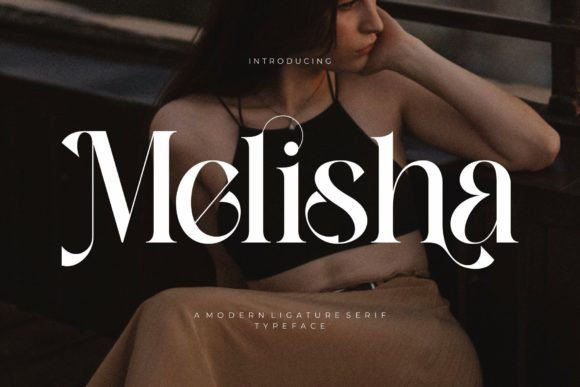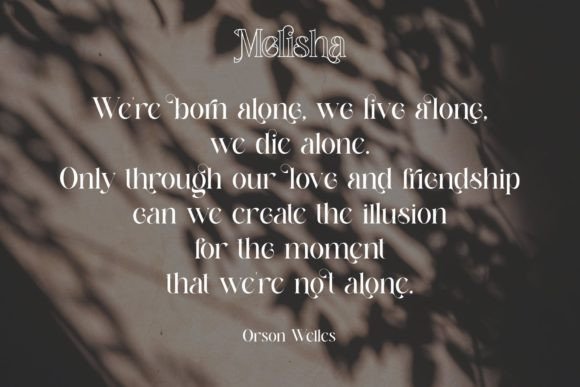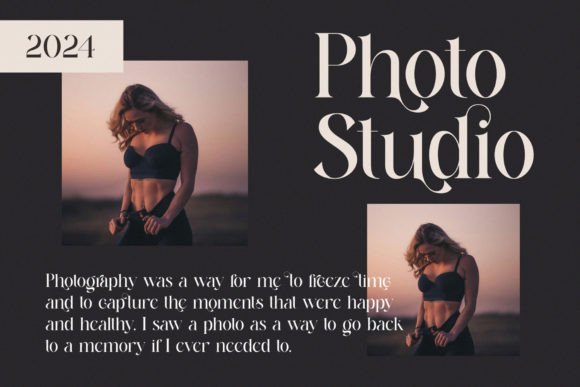
Melisha Font: Elegant Serif Typography for Modern Logo Design
About the Melisha Font
Discover the charm of Melisha Font. This font is a perfect blend of modern aesthetics and classic appeal. **Melisha** Modern Serif Typeface inspired by the famous minimalist logo perfect to design templates, brochures, videos, advertising branding, logos, invitations, layout designs, elegant crafting, beauty design, and other
Melisha’s clean lines and modern serif design make it ideal for headlines, logos, and short-form text in branding materials and advertising. It excels in creating a sophisticated and memorable impression in posters and invitations, lending itself well to high-impact visuals. However, its elegant but slightly formal style is less suitable for body text or UI elements requiring high readability in long paragraphs.
Pairing Melisha effectively depends on the desired effect. For a contemporary feel, consider pairing it with a geometric sans-serif like Montserrat or a neutral sans-serif such as Lato. To emphasize its elegance, a delicate script font such as Great Vibes can add a touch of luxury. Conversely, a strong, contrasting serif like Playfair Display can create visual dynamism.
Melisha projects a sophisticated, minimalist, and modern personality. Brands seeking to convey elegance, authority, or a sense of refined simplicity will find it a strong asset. Its versatility allows for applications ranging from high-end beauty products to corporate branding, emphasizing a sense of timeless quality.
Melisha Font Usage Examples
Melisha Font Example